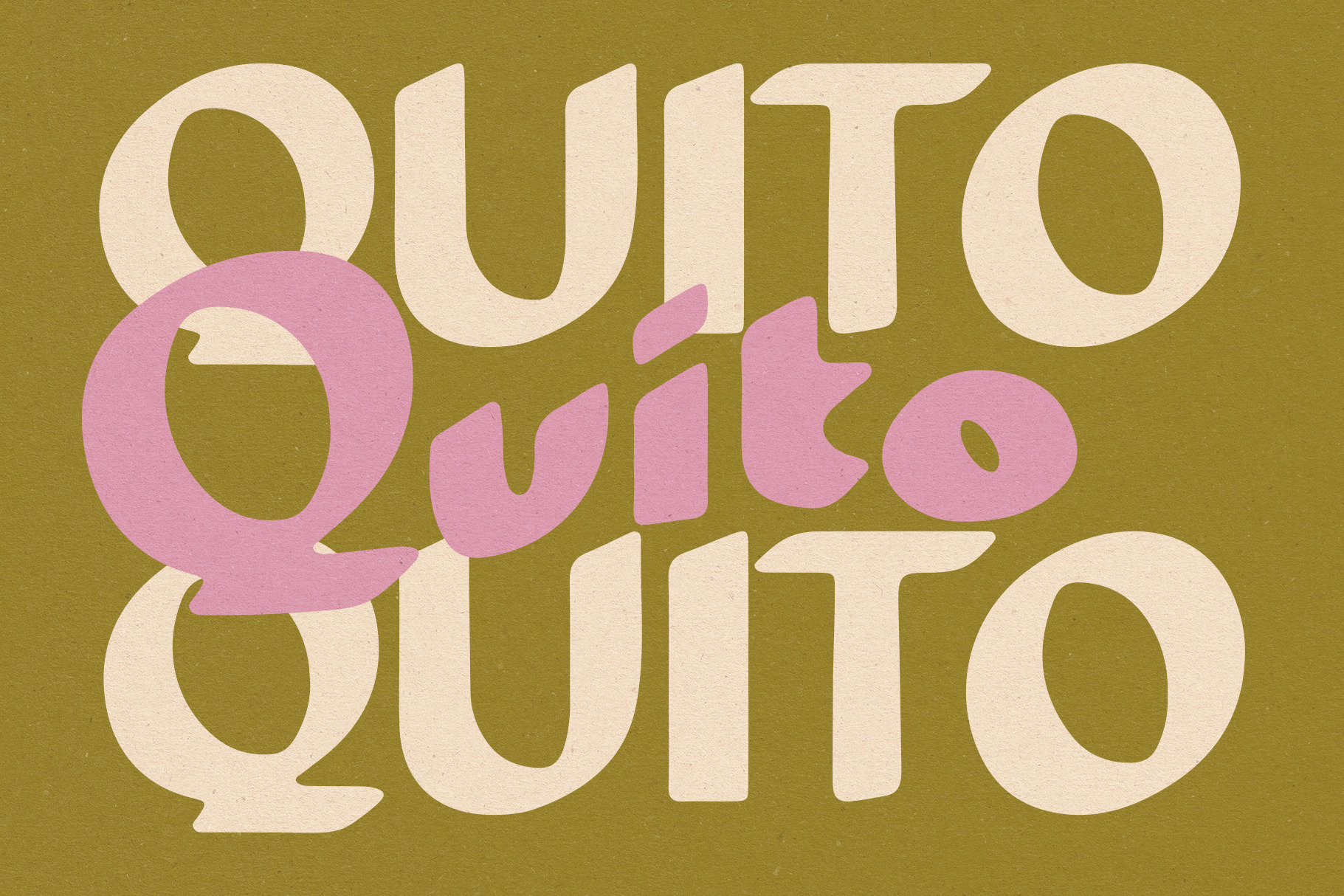
Quito Typeface
Quito is a hand-drawn display typeface inspired by a little sign café sign I saw a few years ago and took a photo of. I love the imperfect angled edges and the bold, hand-painted effect that somehow still looks neat even when used in a block of text. This typeface is timeless and versatile, and I hope you love it as much as I do!